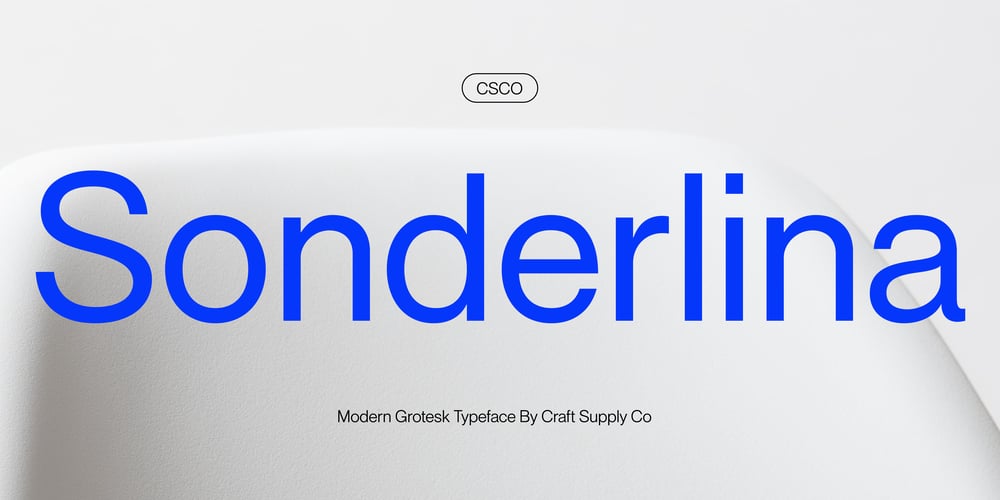
Sonderlina Font Family was designed by Wahyu Hadi Yuana and published by Craft Supply Co. Sonderlina contains 9 styles and family package options. Sonderlina is a convenient and modern grotesk sans serif features low contrast details to cover small text purposes. It can be used to create almost all types of design projects like print materials. Just use your imagination and your project will become more alive and look great than ever with this typeface.